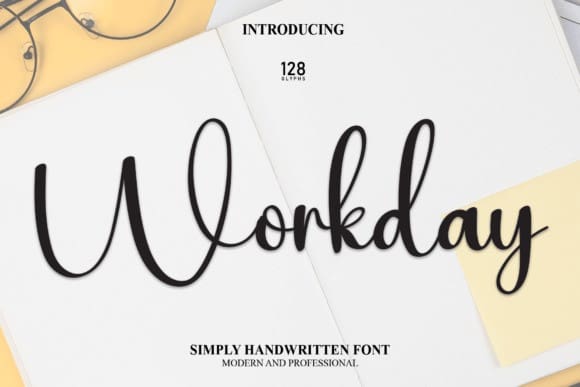
Workday Script Typeface
Workday Script Typeface, perfect for wall displays, wedding invitations, social media post logos, advertisements, product packaging, product designs, labels, photography, watermarks, invitations, stationery, and any project that requires a handwritten taste.